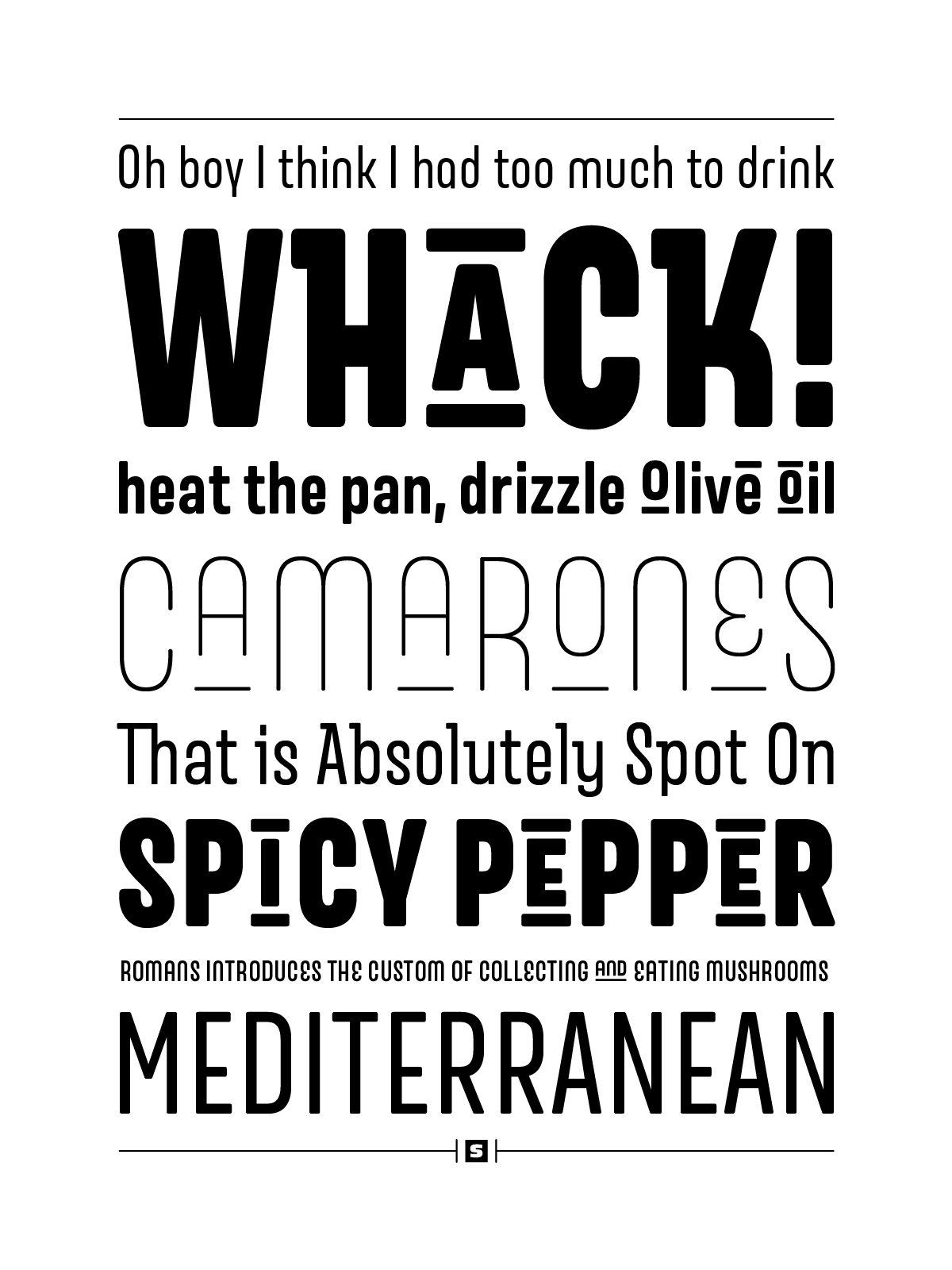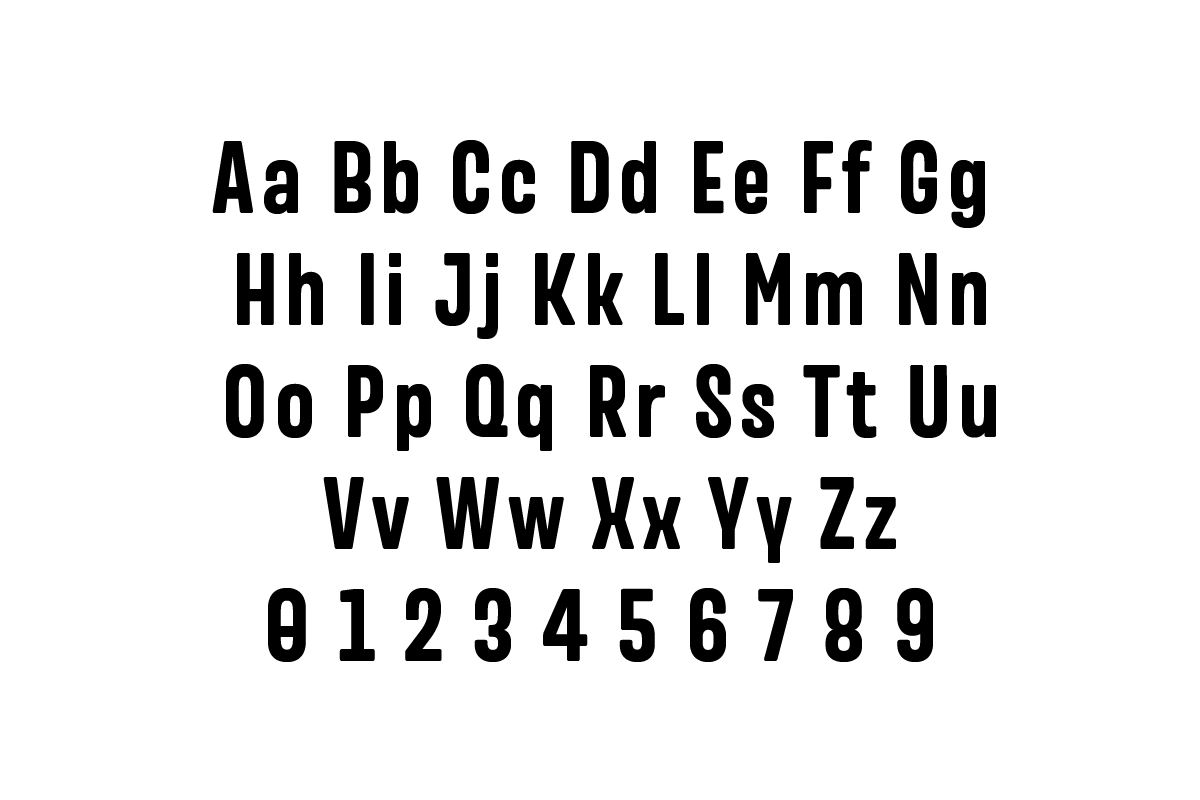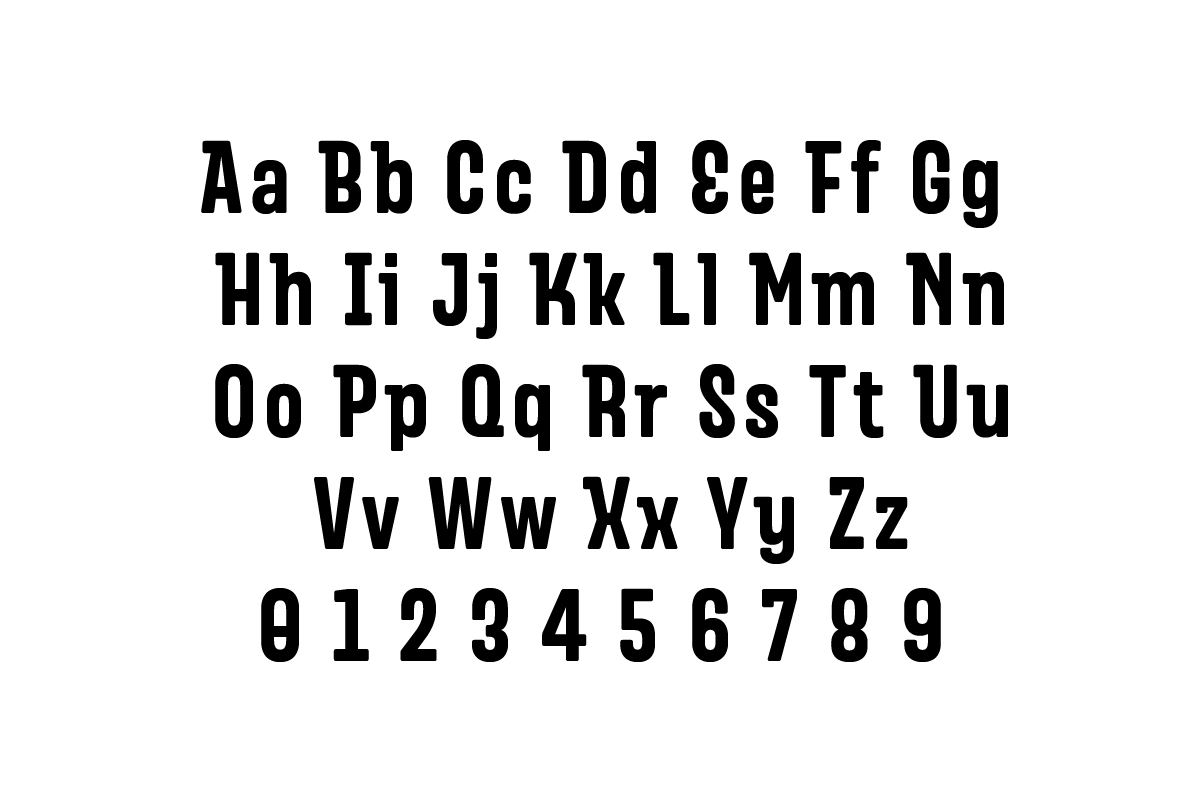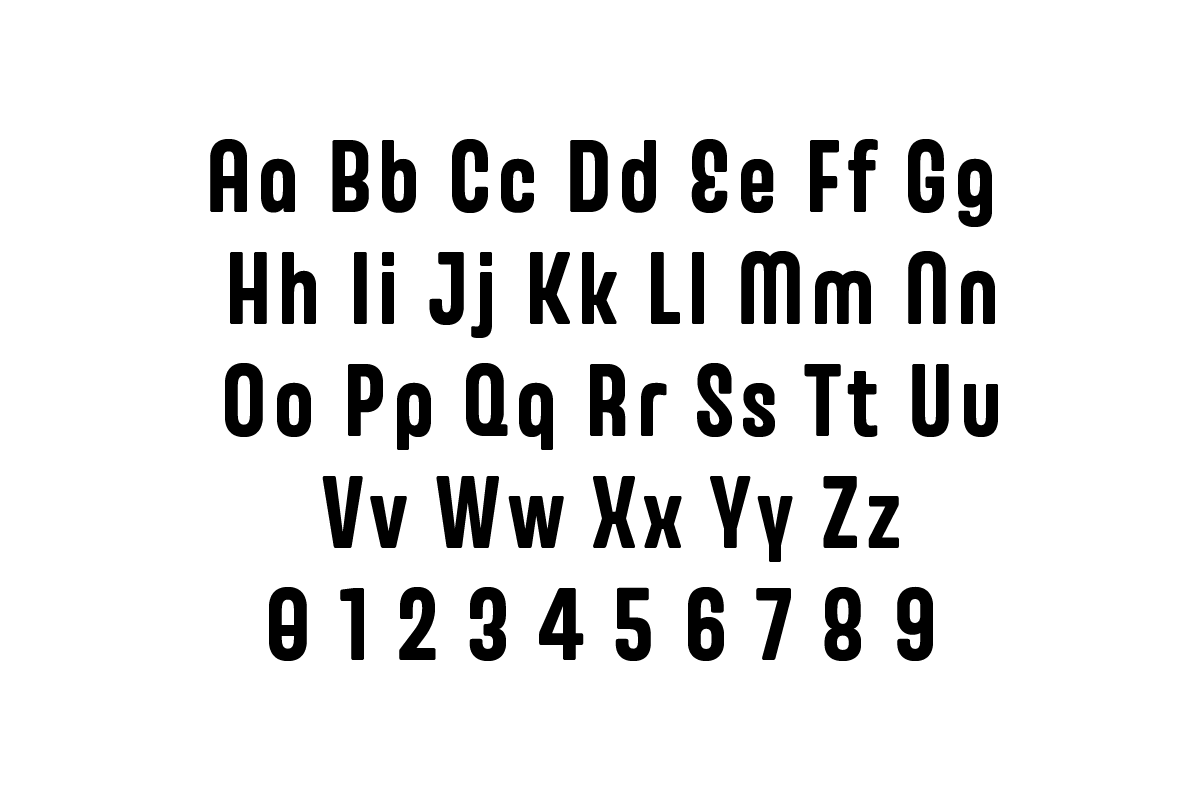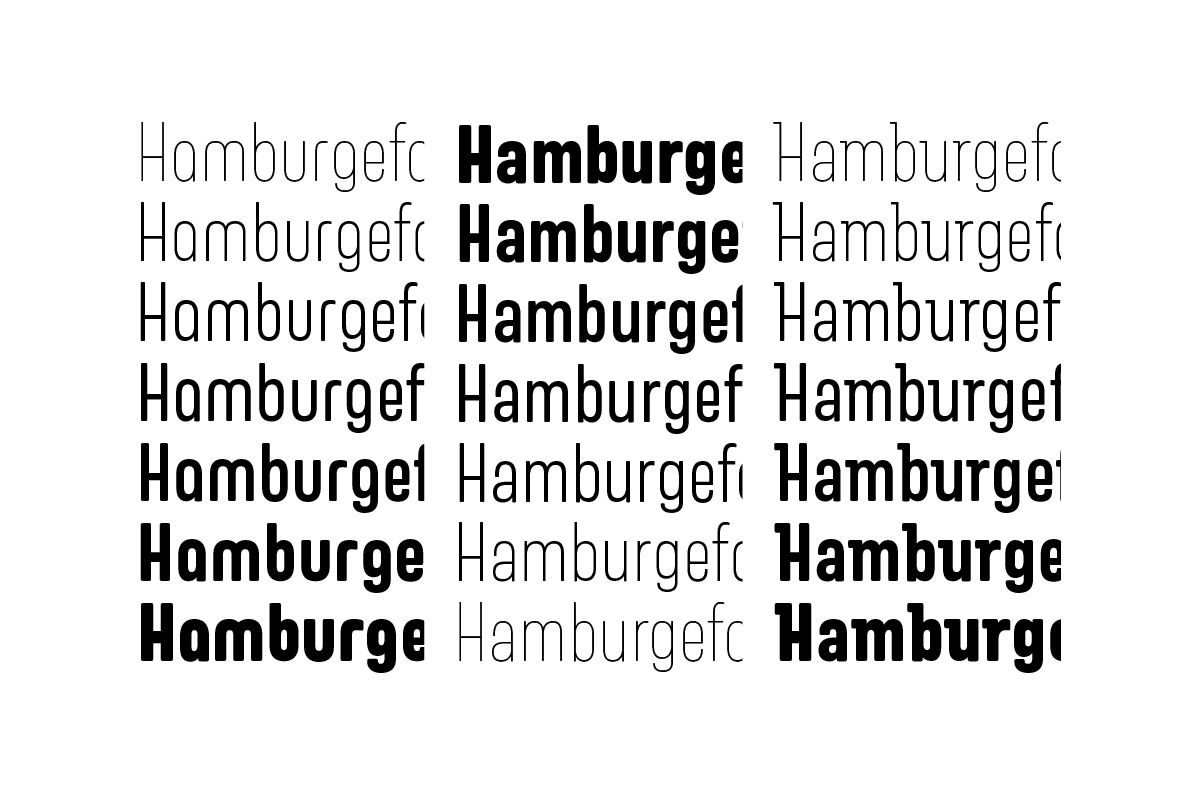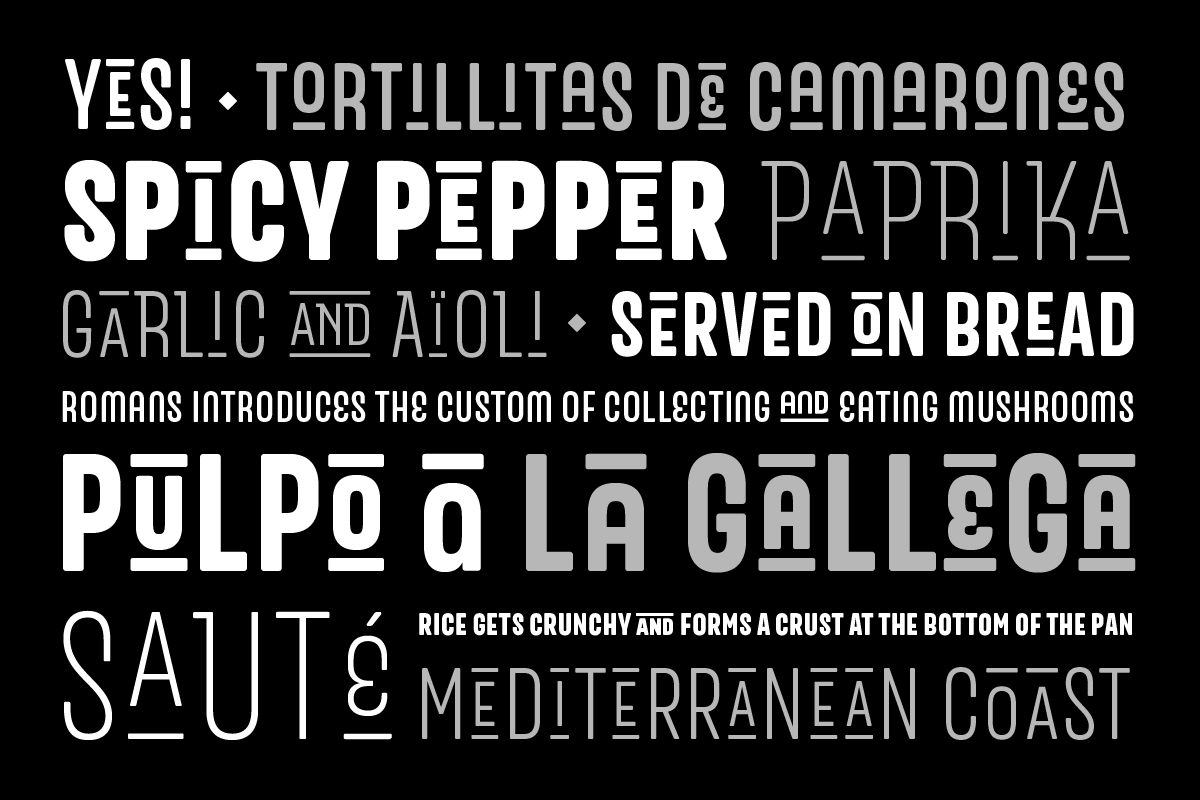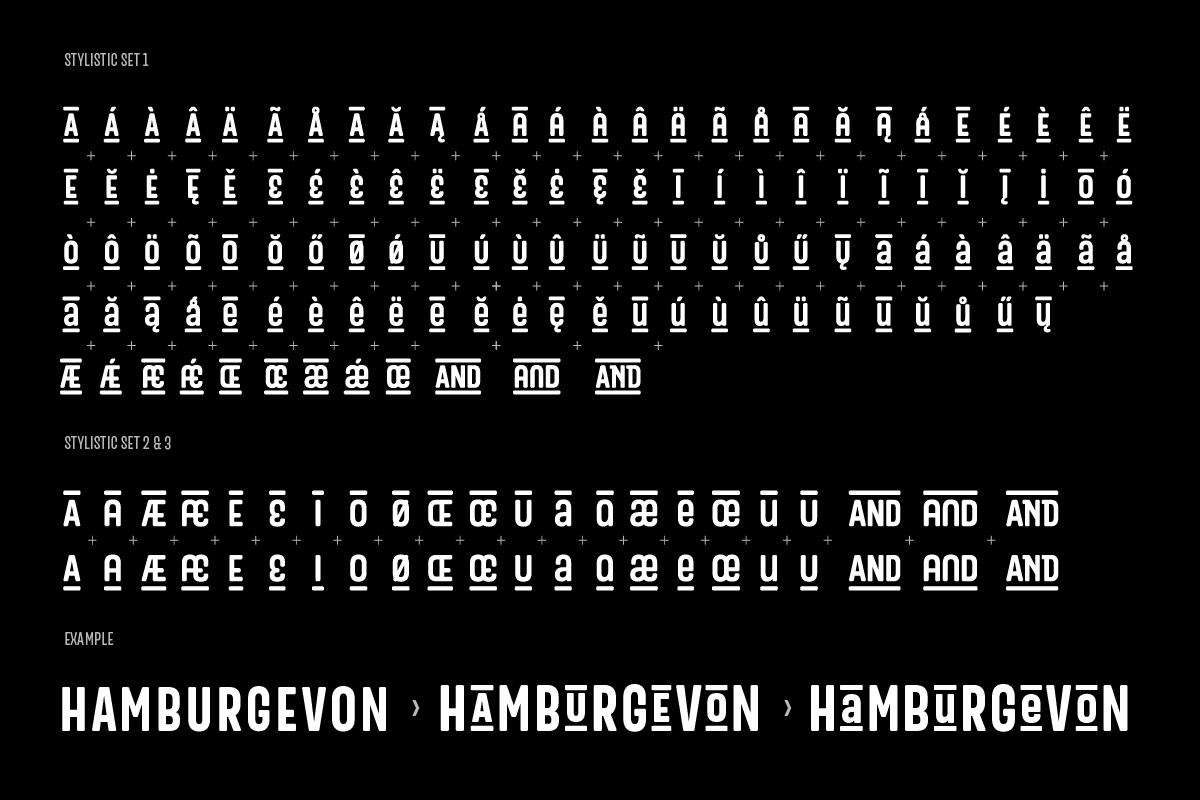
The family gives branding a playful structure without losing clarity.
Merlod has depicted its characters from Latin-American sign painting and reinterpreted them into modern approaches. This typeface is a friendly, fun and flexible family that is fun to use, consisting of 3 different styles that each comes with 7 weights. Each style of Merlod – Norme, Autre and Queue, possess a distinctive character but works together compatibly. Merlod also comes with a special stylistic set that allows the user to be creative and playful with the type, it helps enhance many different possibilities that certainly will spice up your design.